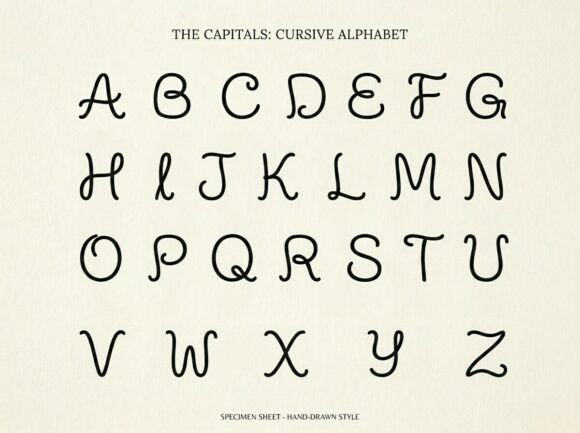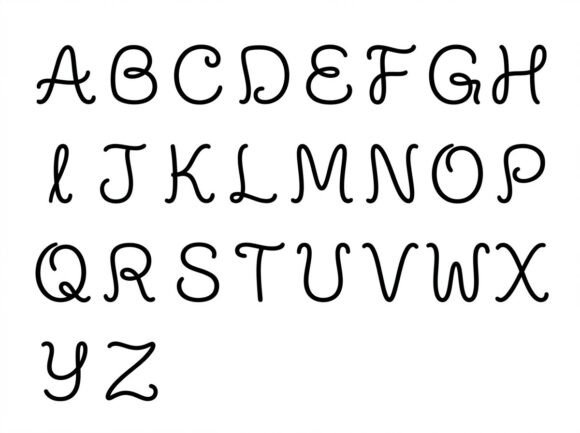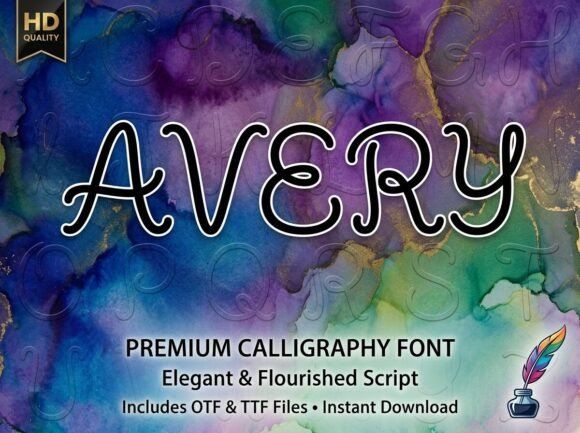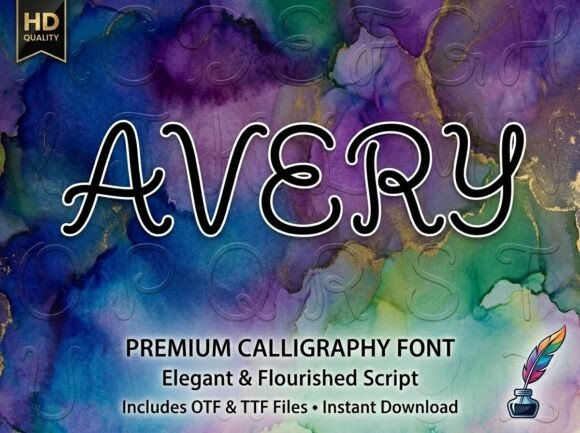
Introducing Avery Font: The Ultimate Display Typeface for Creative Rebels
Are you tired of using the same old fonts that blend in with the crowd? Look no further than Avery Font, an avant-garde decorative display font designed to make a statement. With its commanding visual personality and unique artistic flourishes, this typeface is perfect for creators who refuse to blend in.
Avery Font is characterized by its strong, artistic soul and high-end, polished finish. This font is not for the faint of heart – it’s designed to be the focal point of any composition, grabbing attention and leaving a lasting impression. Whether you’re working on luxury packaging, experimental editorial layouts, or bold advertising campaigns, Avery Font is the perfect choice.
Ideal for Creative Projects
Avery Font is ideal for a variety of creative projects, including:
• High-impact headlines that demand attention
• Signature logos and branding that make a statement
• Conceptual packaging that stands out on store shelves
• Poster and social media design that needs to grab attention
A Font that’s All About the Details
One of the unique features of Avery Font is that it’s an all-caps (uppercase only) display typeface. By omitting lowercase characters, the designer has focused entirely on the intricate craftsmanship of every individual letter, ensuring each one acts as a standalone work of art. This attention to detail makes Avery Font truly special.
Why Choose Avery Font?
So why choose Avery Font over other display typefaces? Here are just a few reasons:
• Uniqueness: Avery Font is truly one-of-a-kind, with a distinctive visual personality that will set your designs apart.
• Versatility: This font can be used for a wide range of creative projects, from luxury packaging to experimental editorial layouts.
• High-end finish: Avery Font has a polished, refined finish that’s perfect for high-end designs.
Tips for Using Avery Font
Here are a few tips for getting the most out of Avery Font:
• Use it sparingly: Avery Font is designed to make a statement, so use it sparingly to maximum effect.
• Experiment with colors: Avery Font looks great in bold, bright colors – don’t be afraid to experiment and find the perfect hue for your design.
• Pair it with a neutral font: For body text, pair Avery Font with a neutral font to create a striking contrast.
Font Name Avery Font
Author Angel_Srapix
Avery Font is a game-changing display typeface that’s perfect for creative rebels who refuse to blend in. With its commanding visual personality, unique artistic flourishes, and high-end finish, this font is sure to make a statement in any design. Whether you’re working on luxury packaging, experimental editorial layouts, or bold advertising campaigns, Avery Font is the perfect choice. So why wait? Download Avery Font today and take your designs to the next level.